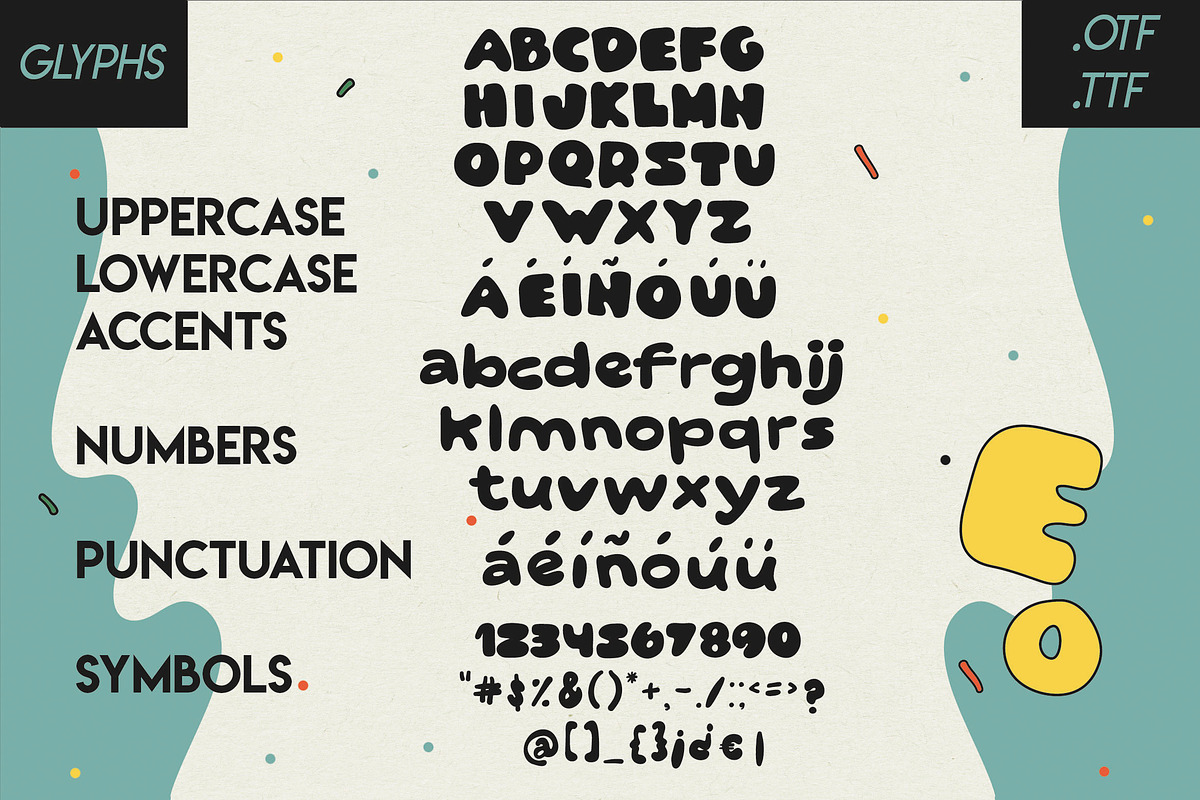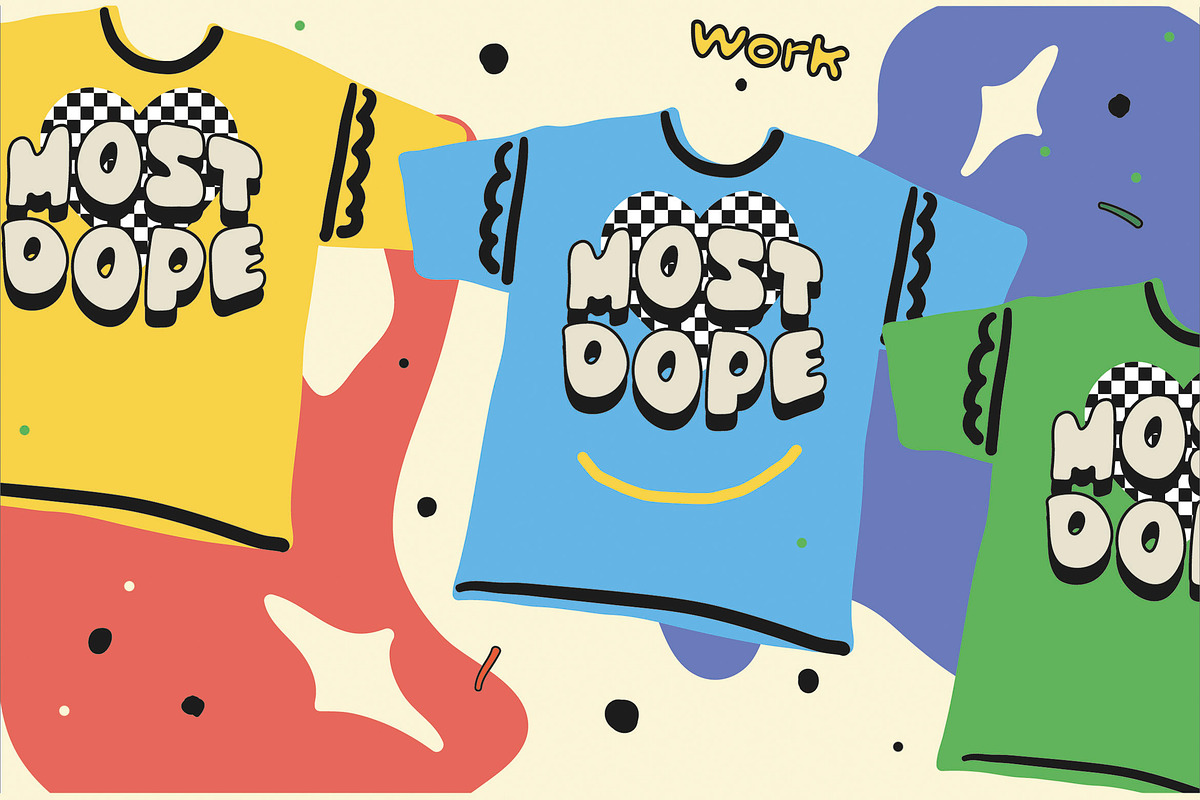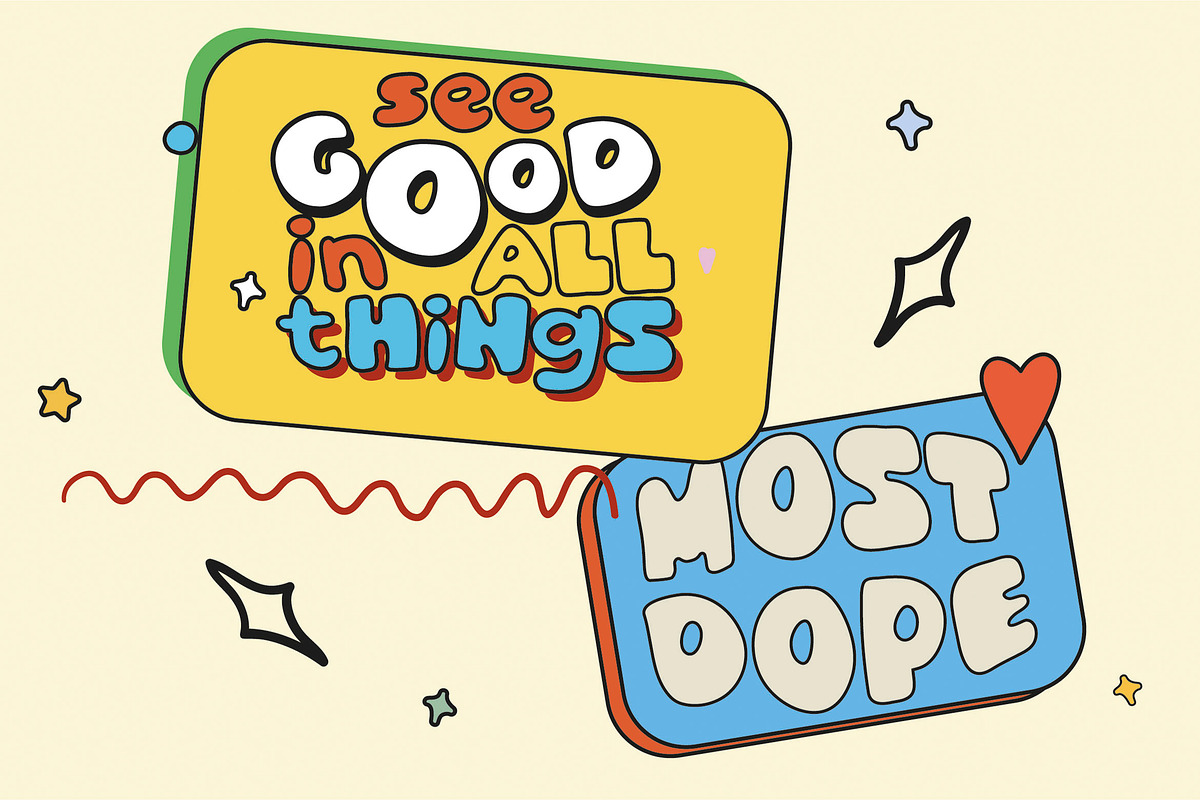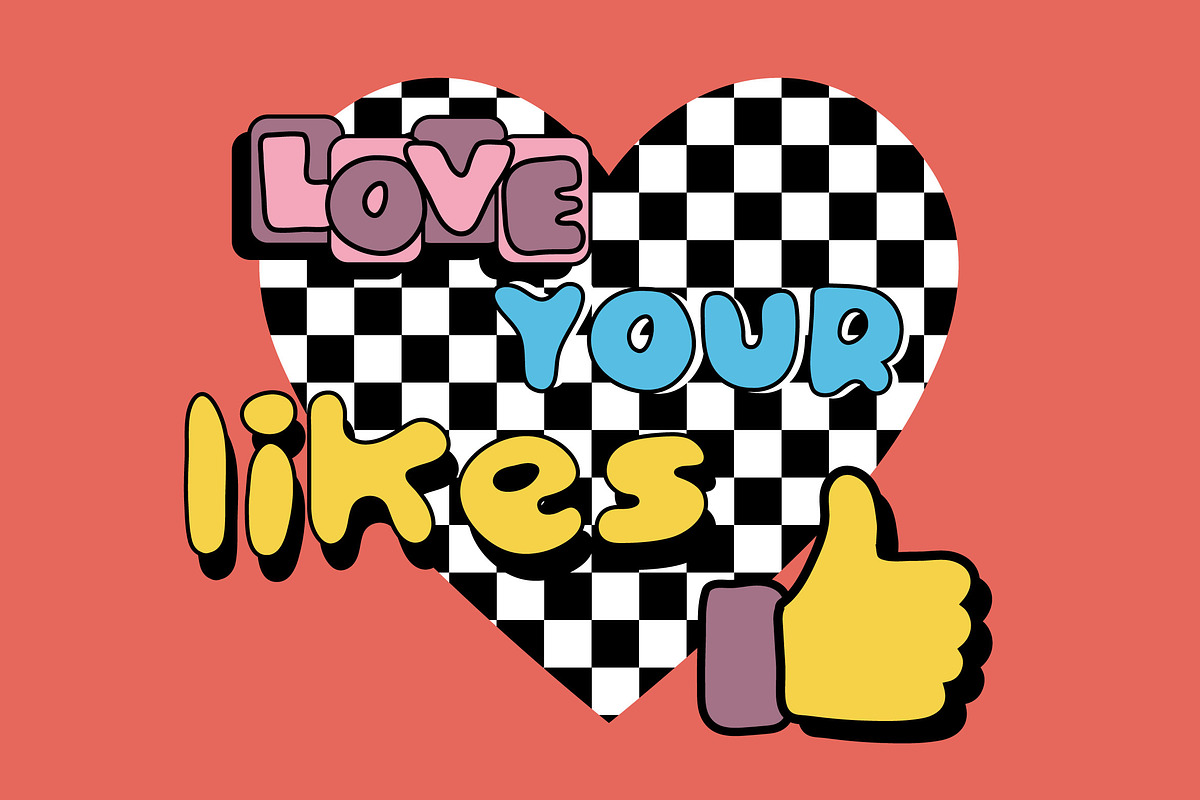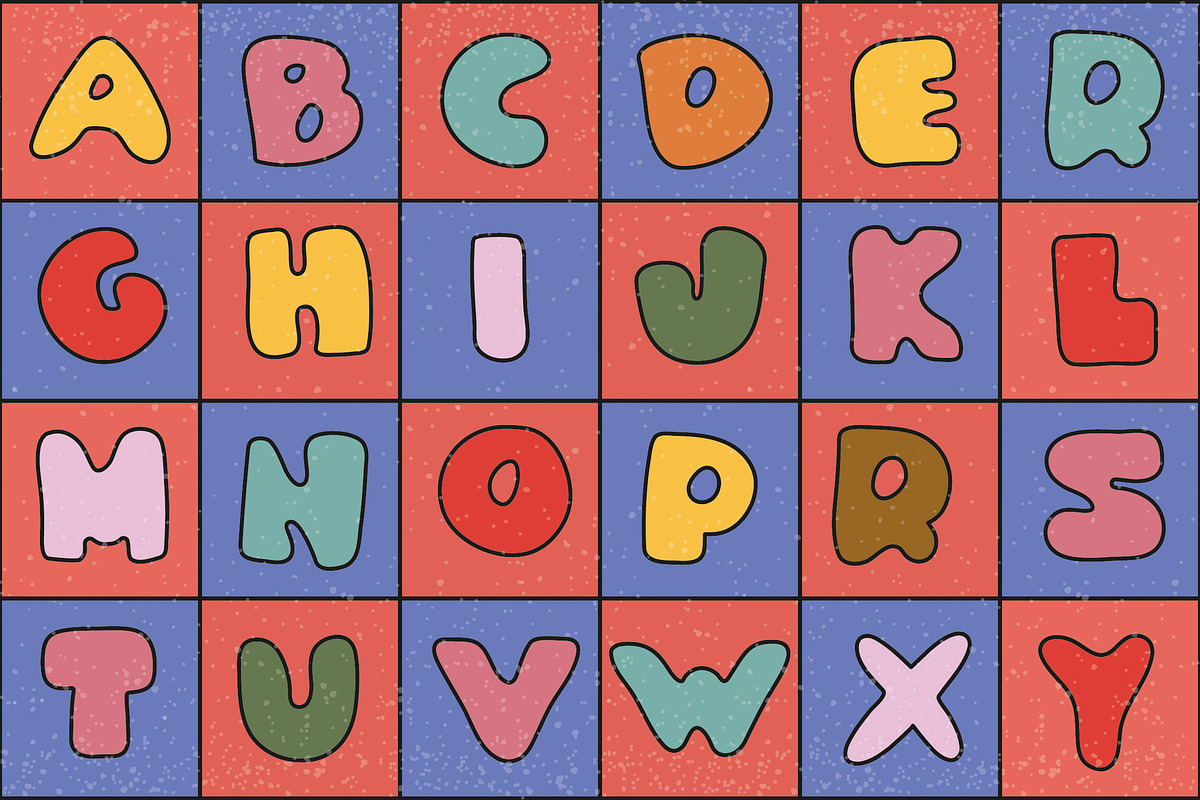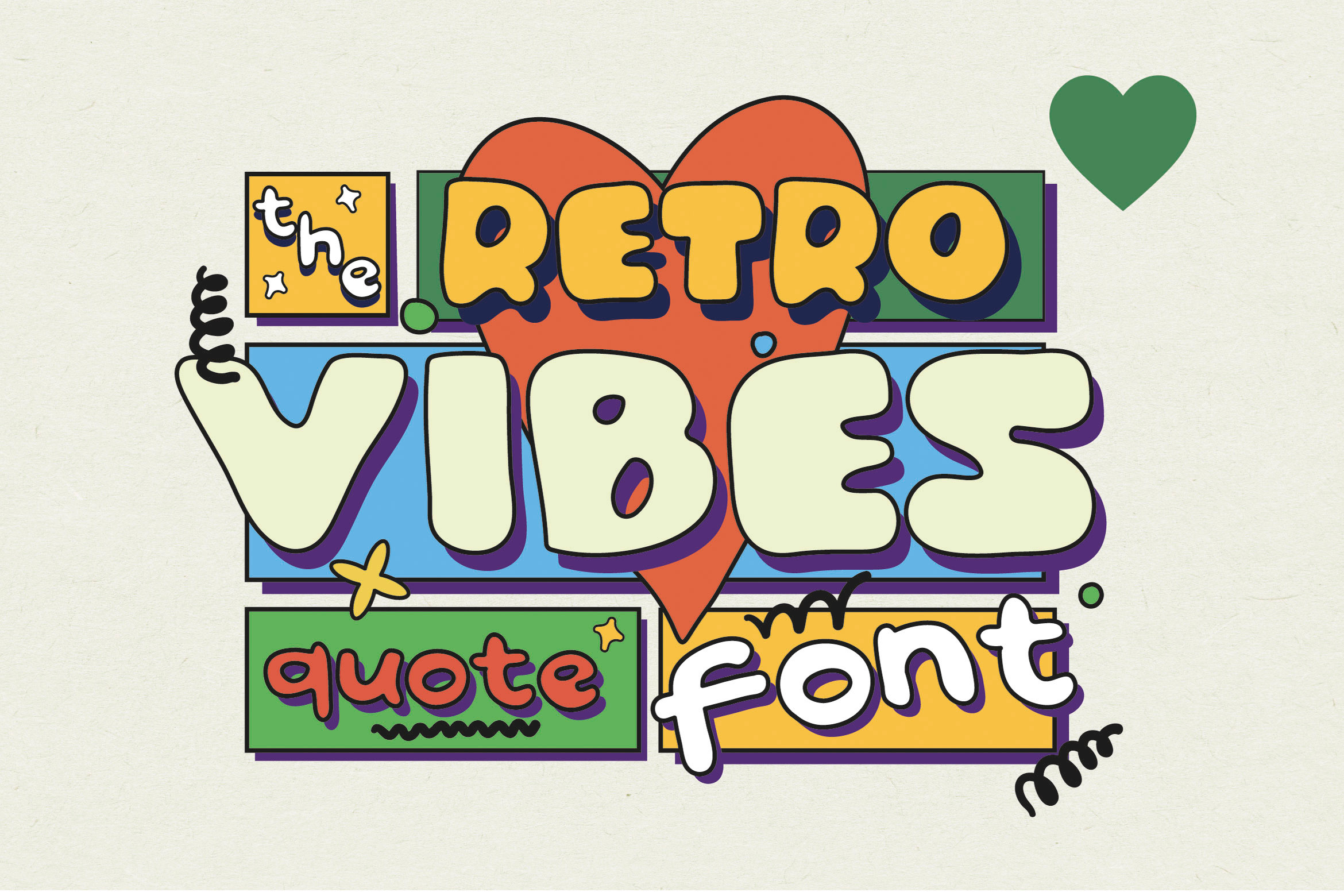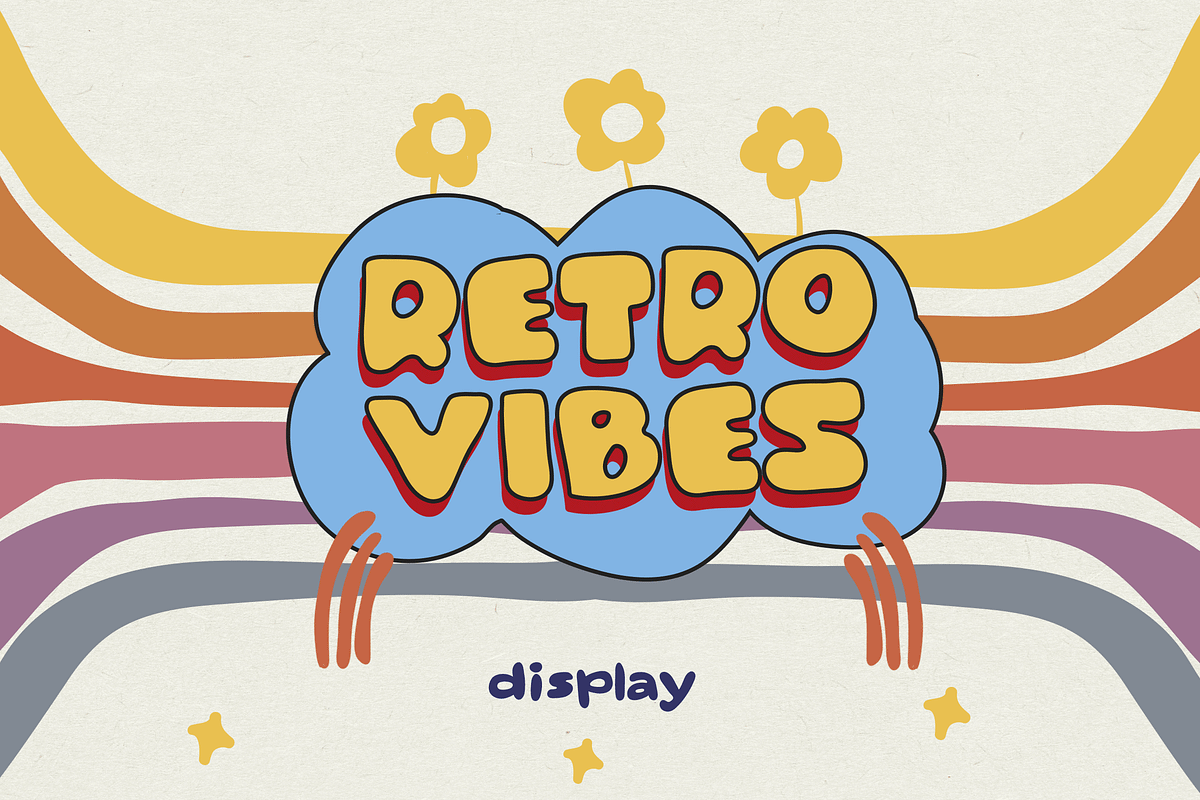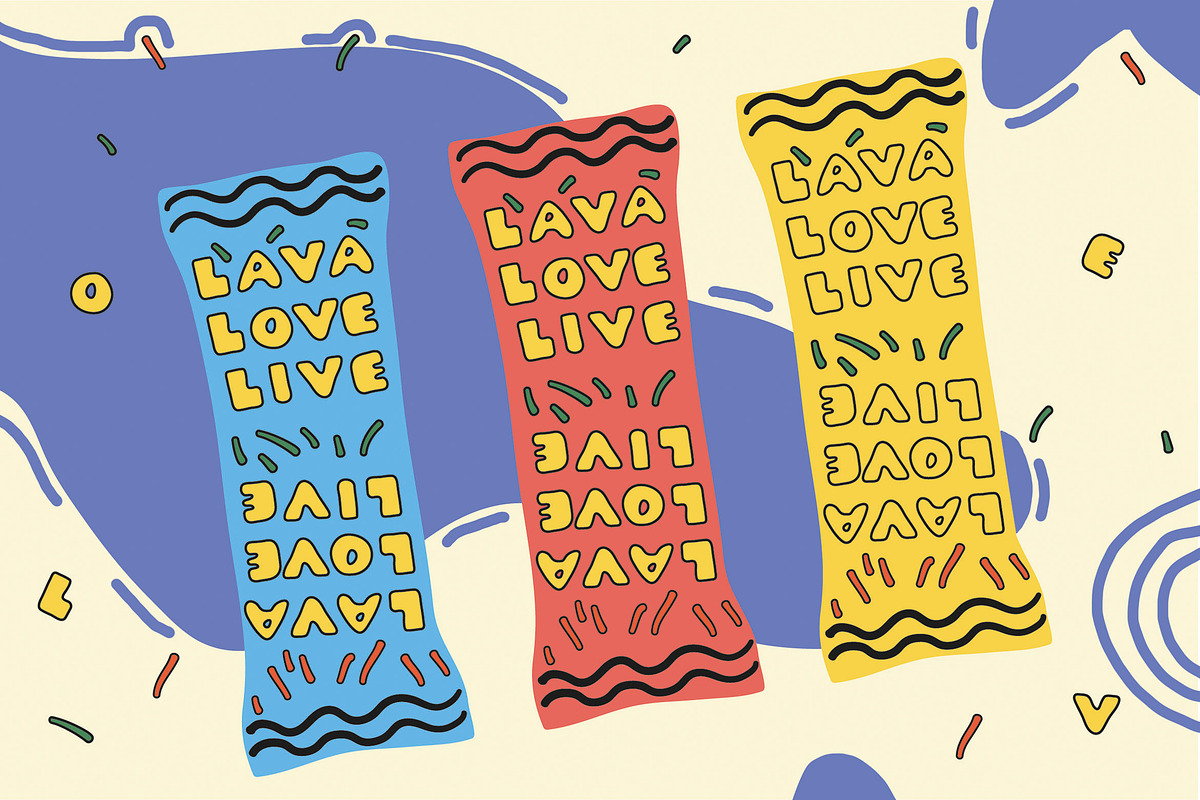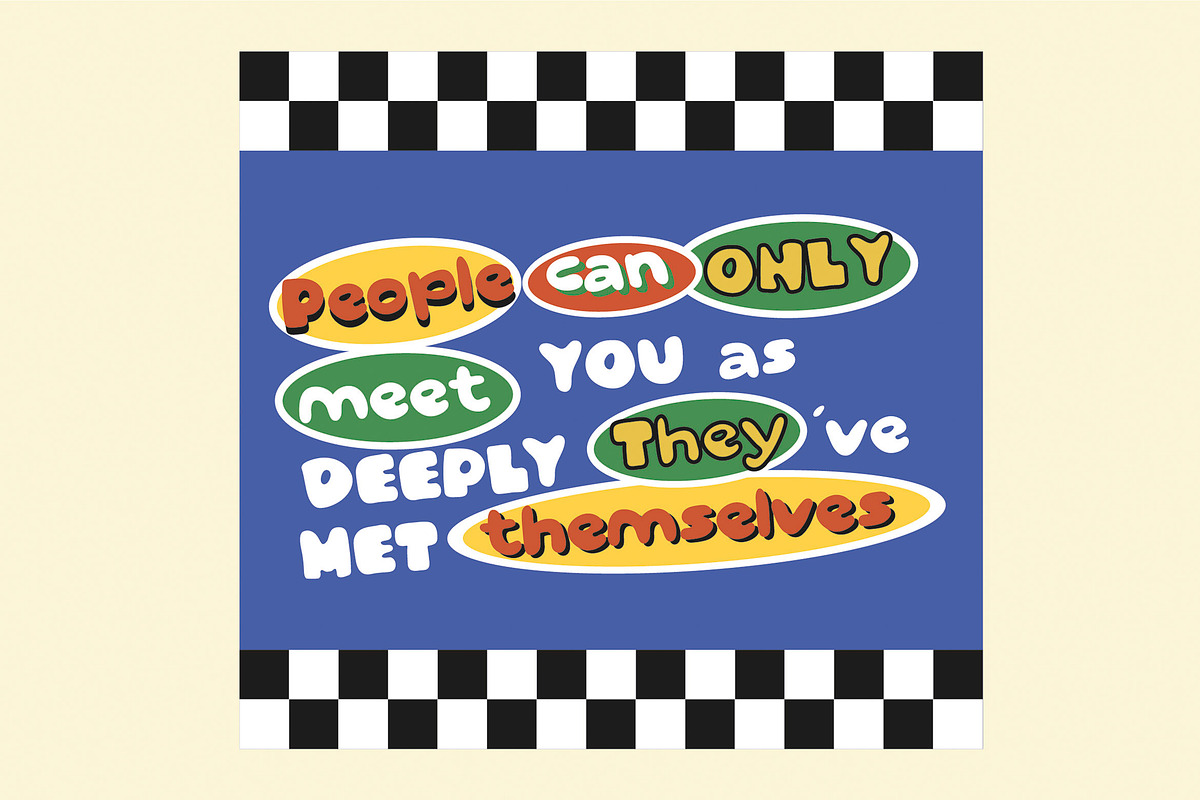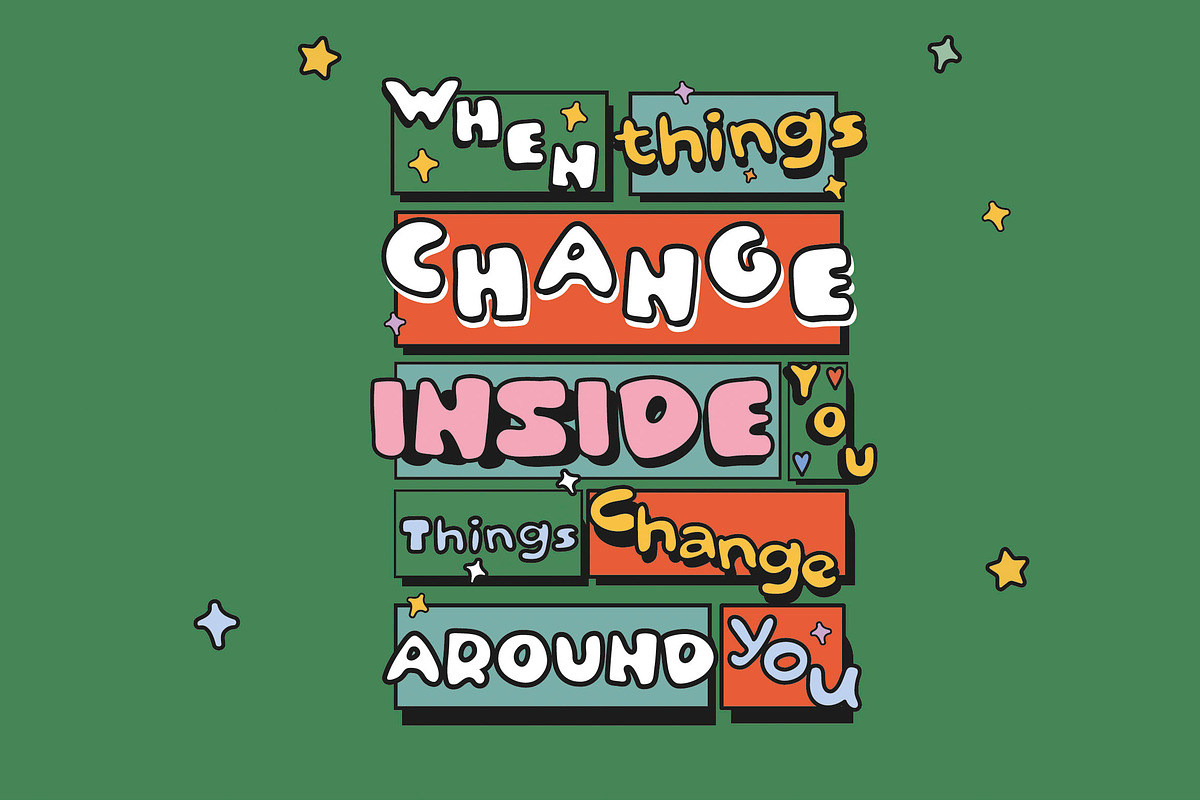
Retro Vibes|Quotable|Hand Drawn Font
Handwritten font with a reference to the 70's. Perfect for scenes and posters. Works well with distortion (bloat - reduction). Works great in quotes, motivational posters. There are all punctuation marks and additional symbols and numbers.